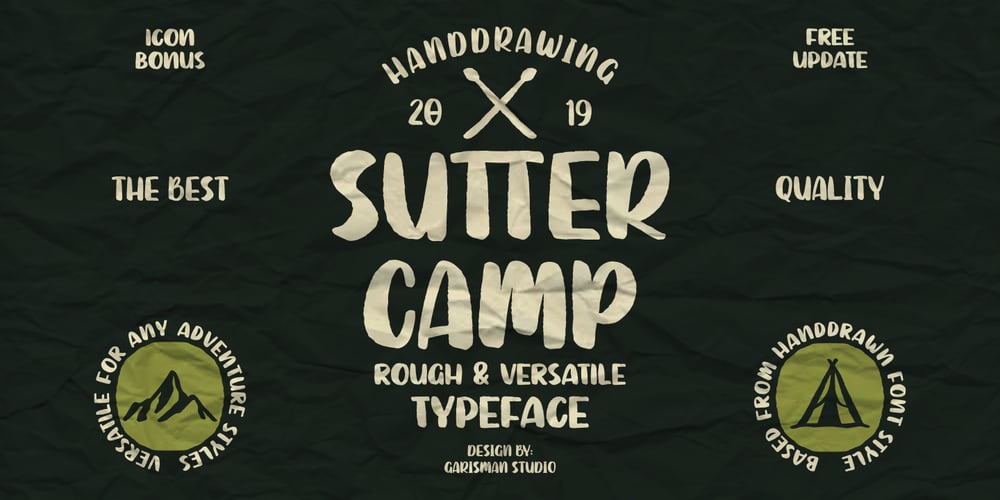
Sutter Camp Font Family was designed by Risman Ginarwan and published by Garisman Studio. Sutter Camp contains 1 styles and family package options. Sutter Camp was born from a light stroke with a special brush in an atmosphere of adventure and the nature! With a touch of rough brush and thick lines, Sutter Camp is here for font users who like adventure style and a hand drawn look. Sutter Camp is very good for use in branding, logo, packaging, quote, hand-lettering look, t-shirt design, banners, posters and many other great jobs. Other features of Sutter Camp: – Simple installation – Support for MAC or PC – Very simple for Adobe Illustrator, Adobe In Design, Photoshop, or other design software. including for Ms. Word. – PUA encoded open (get by opening the Character Map) – Ligature – Multilingual Support